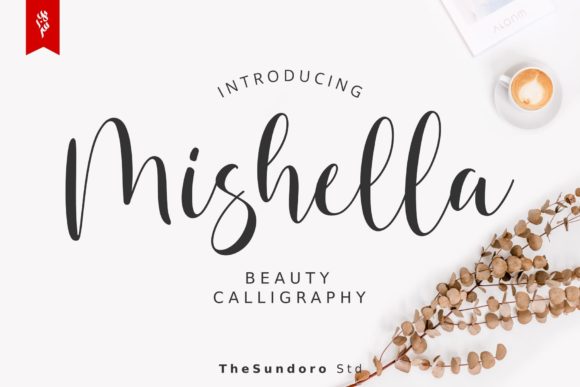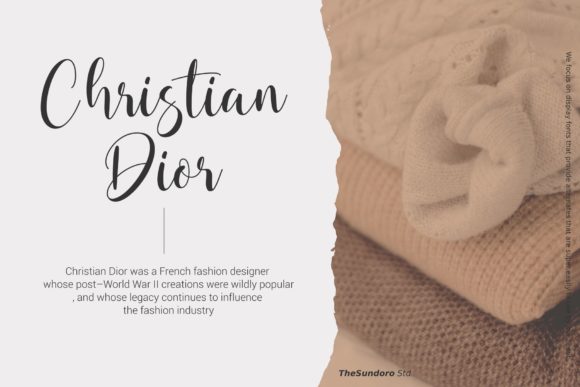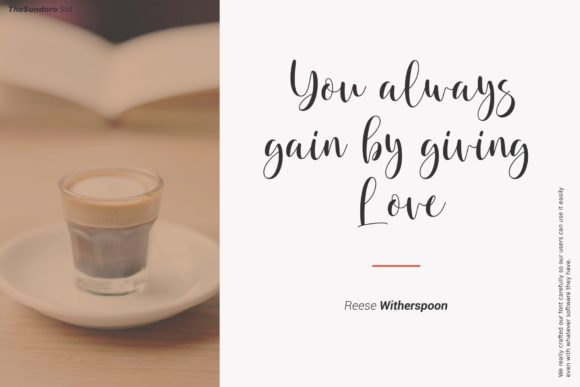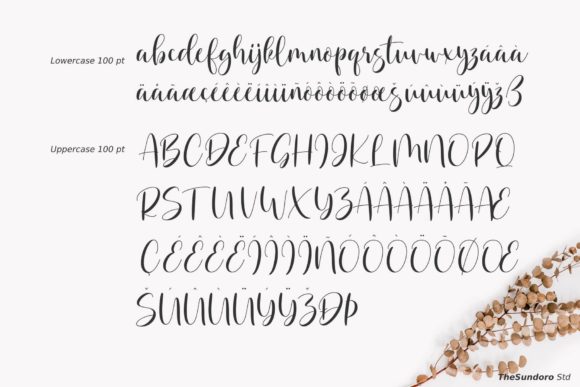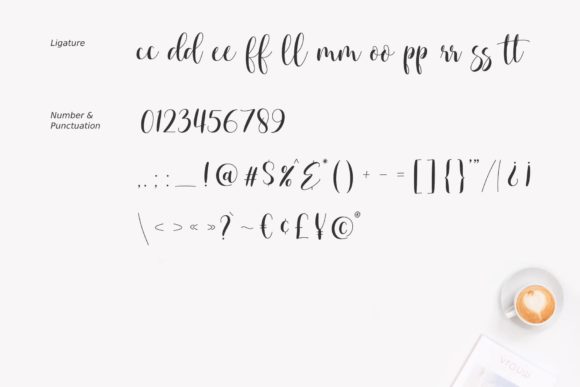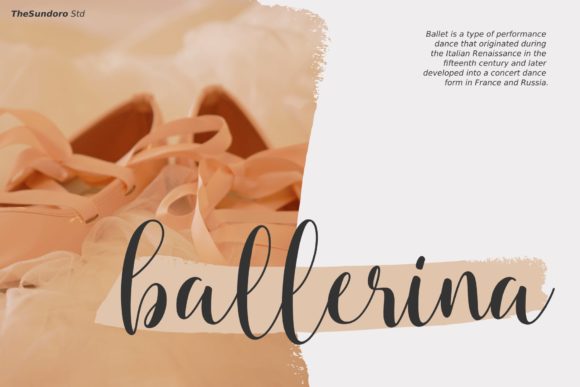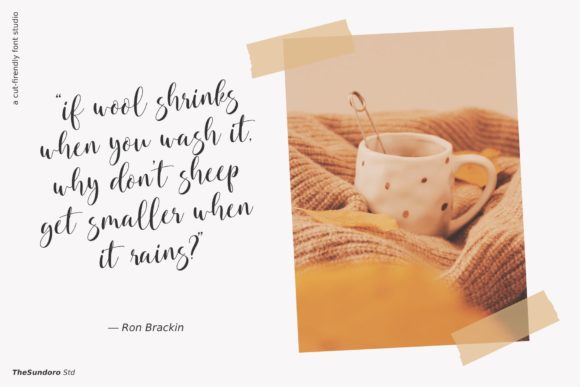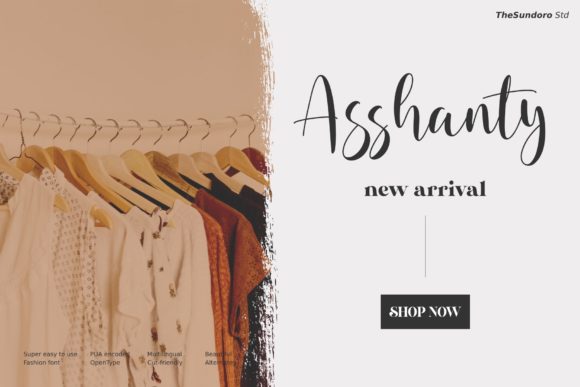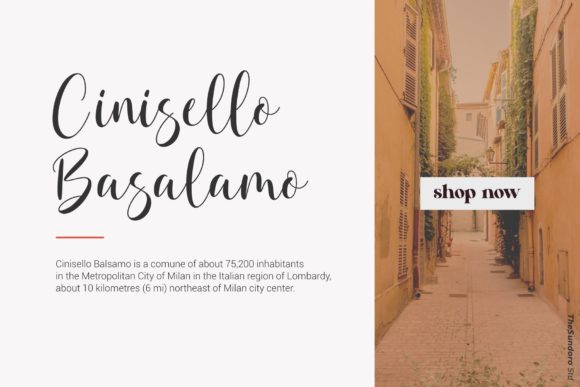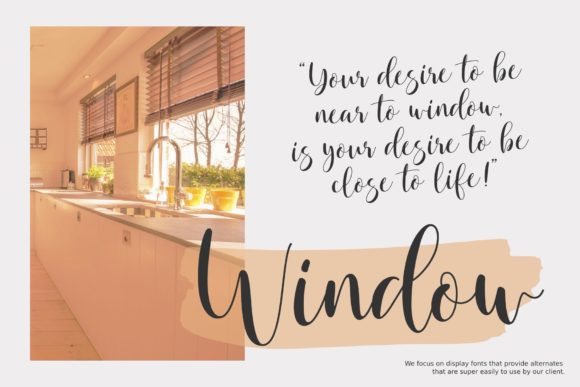
Mishella Font
About Mishella Font
“Mishella” exudes an extraordinary sense of elegance and flow, making it a truly captivating choice. This font possesses a stunning beauty that enhances a wide range of design projects. Whether it’s wedding invitations, thank you cards, quotes, greeting cards, logos, or business cards, “Mishella” lends a touch of sophistication and grace to every design.
The allure of “Mishella” lies in its exceptional and graceful design. Its smooth lines and flowing curves create a visual masterpiece that resonates with viewers. Whether you’re aiming for a romantic and refined atmosphere or a polished and professional appearance, this font effortlessly adapts to your creative vision.
When incorporated into your designs, “Mishella” elevates ordinary elements to the extraordinary. It brings an air of authenticity and elegance that enhances your projects. Whether gracing a wedding invitation or adding depth to a business logo, the font’s presence infuses a layer of refined beauty that leaves a lasting impact.
Embrace “Mishella” as a cherished tool in your design toolkit, allowing it to seamlessly infuse your work with its elegant and flowing charm. Whether you’re an experienced designer or a newcomer to the creative realm, this font empowers you to create visuals that convey authenticity and style. Embrace the captivating essence of “Mishella” and let its elegance and flowing character enrich your designs, capturing the essence of each occasion and message with grace and sophistication.